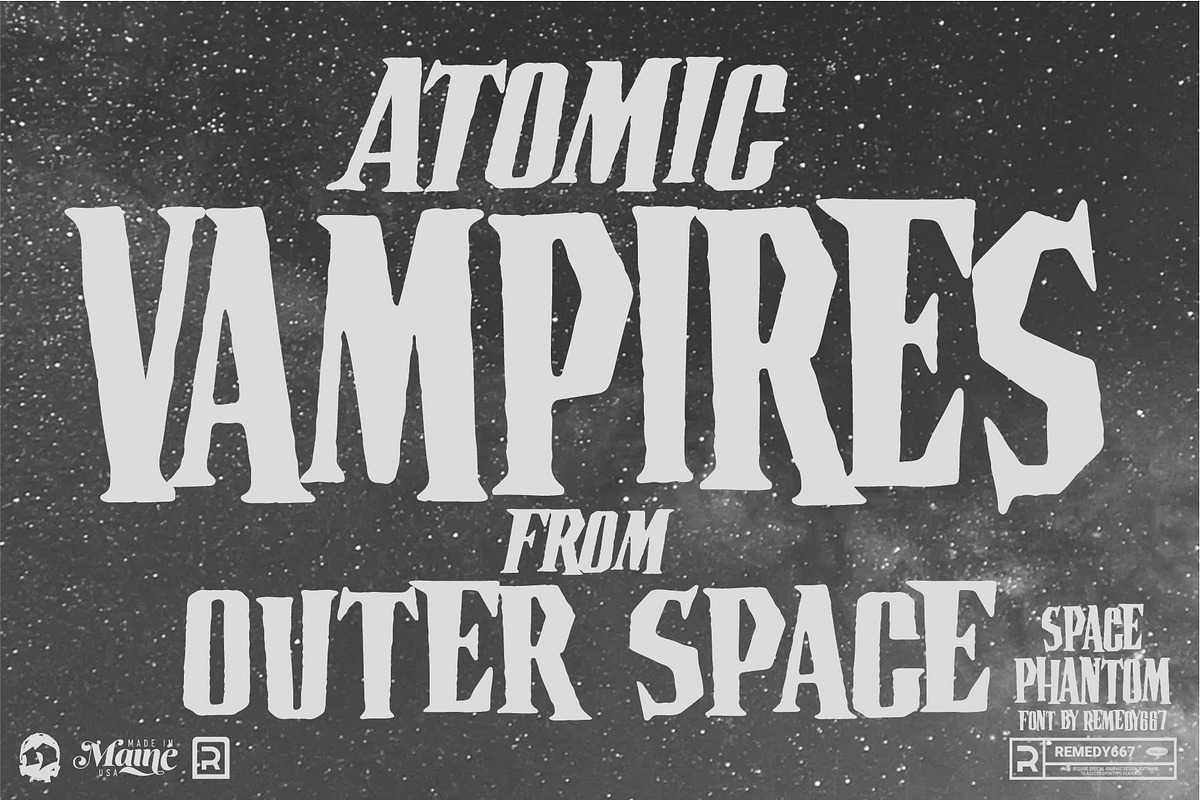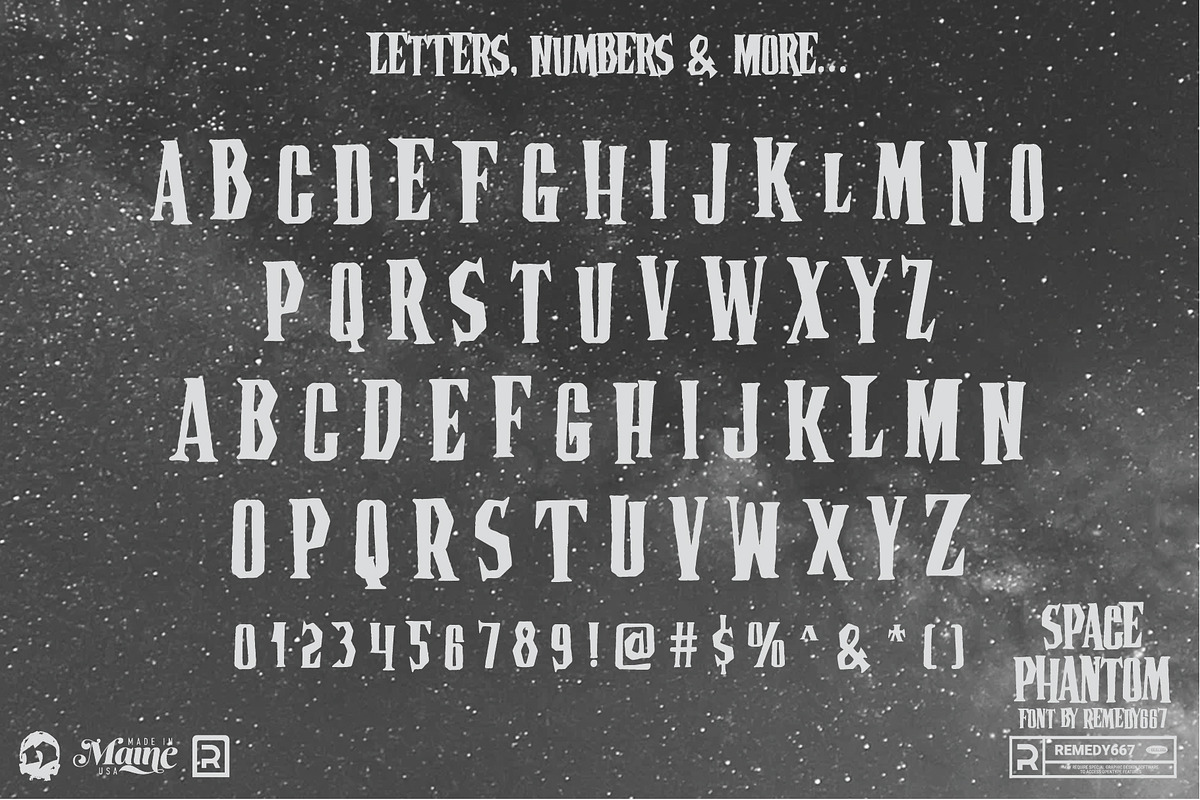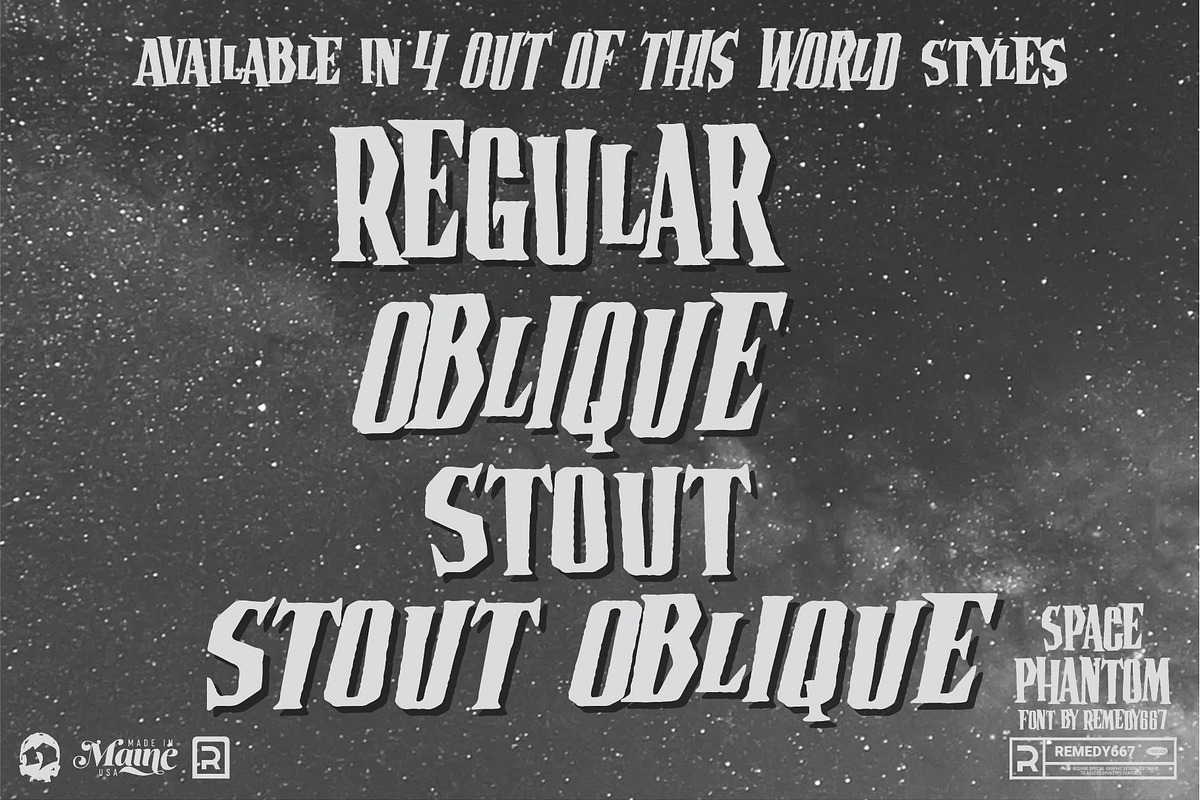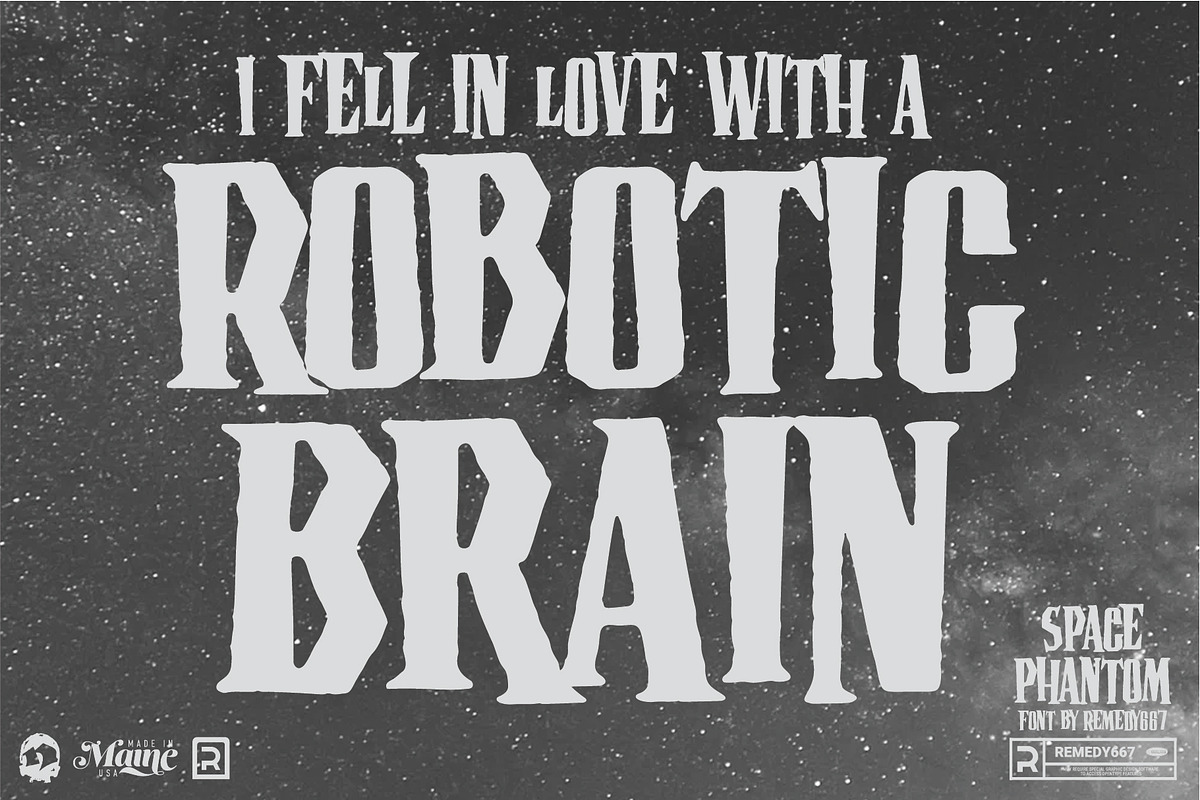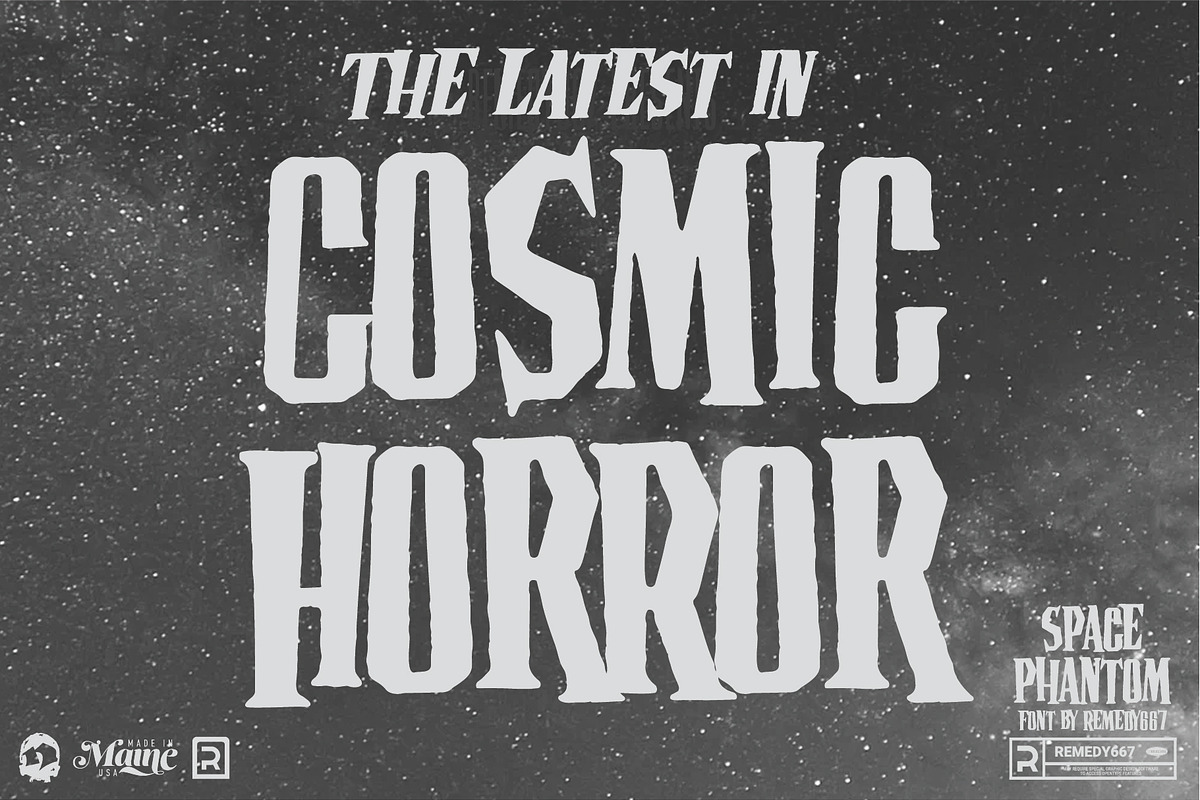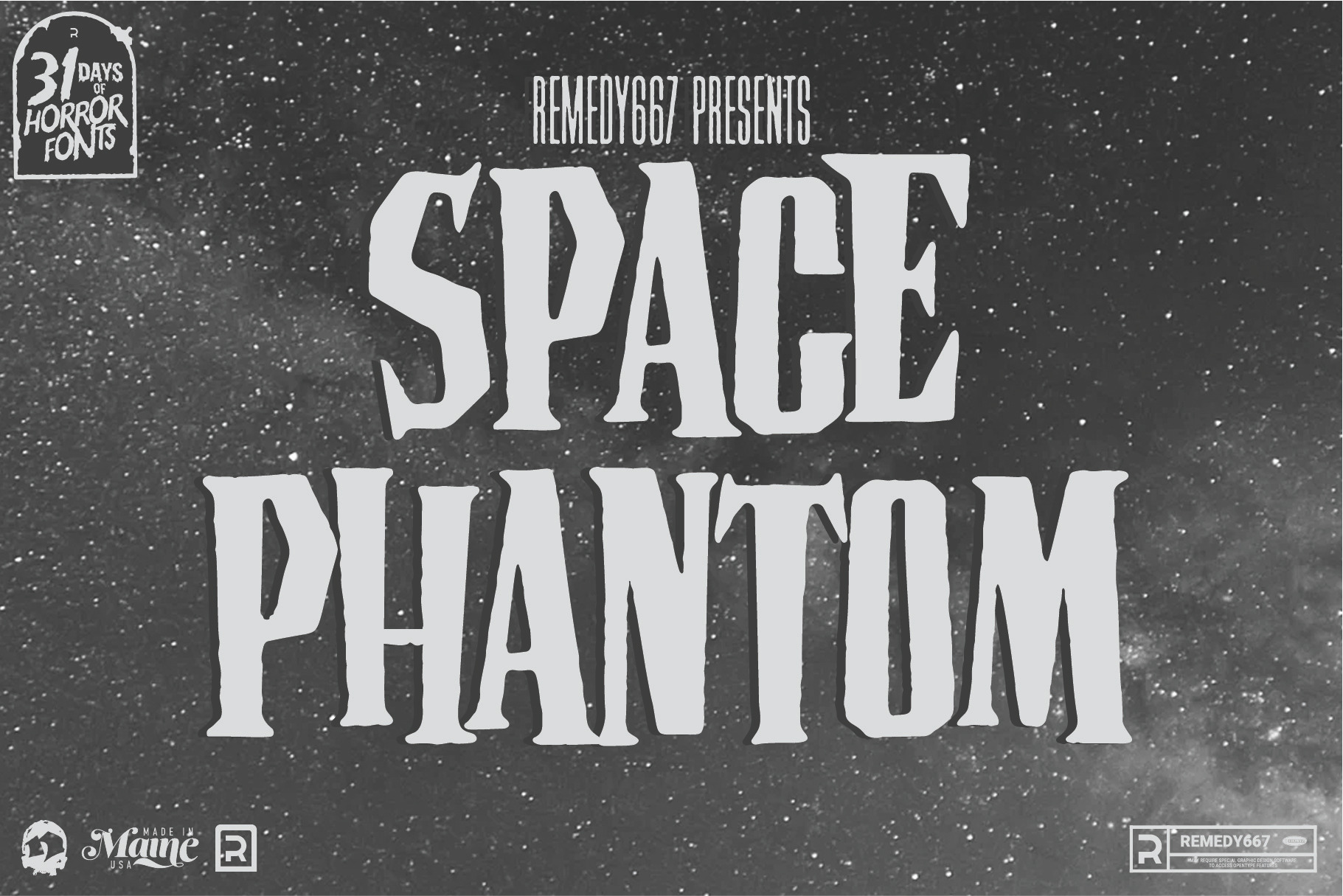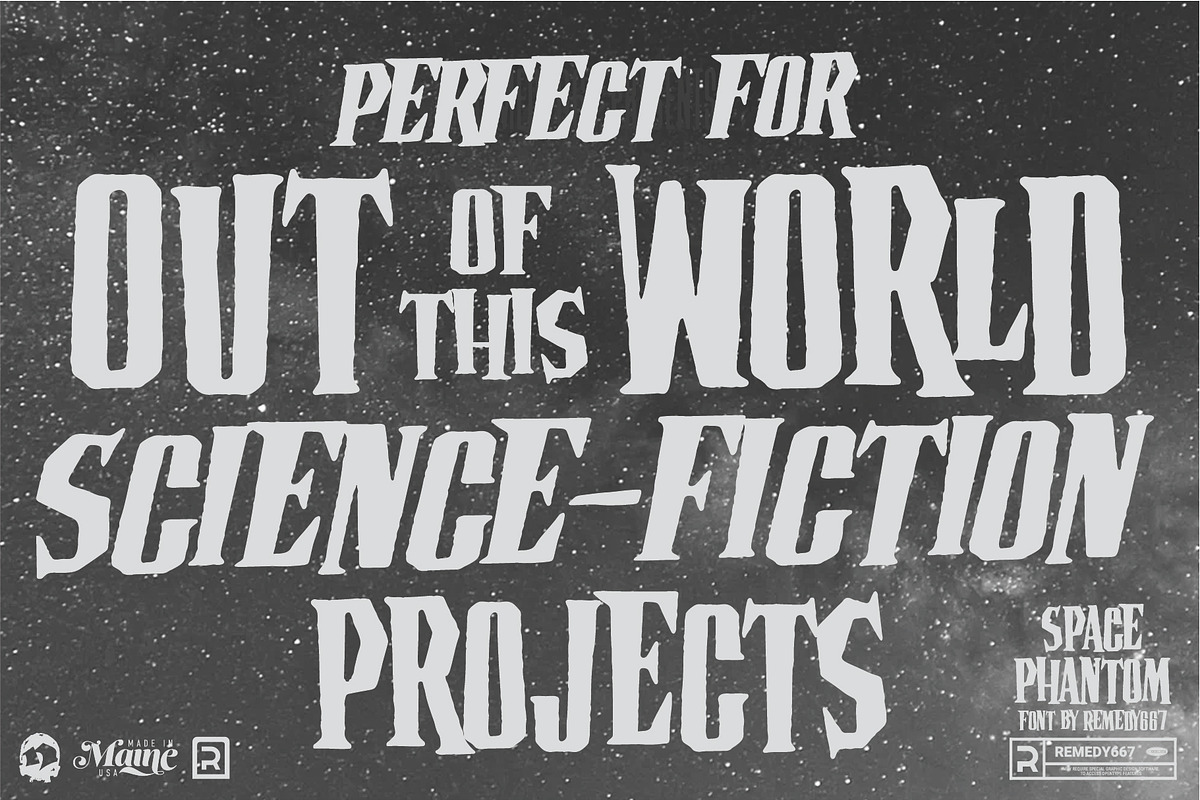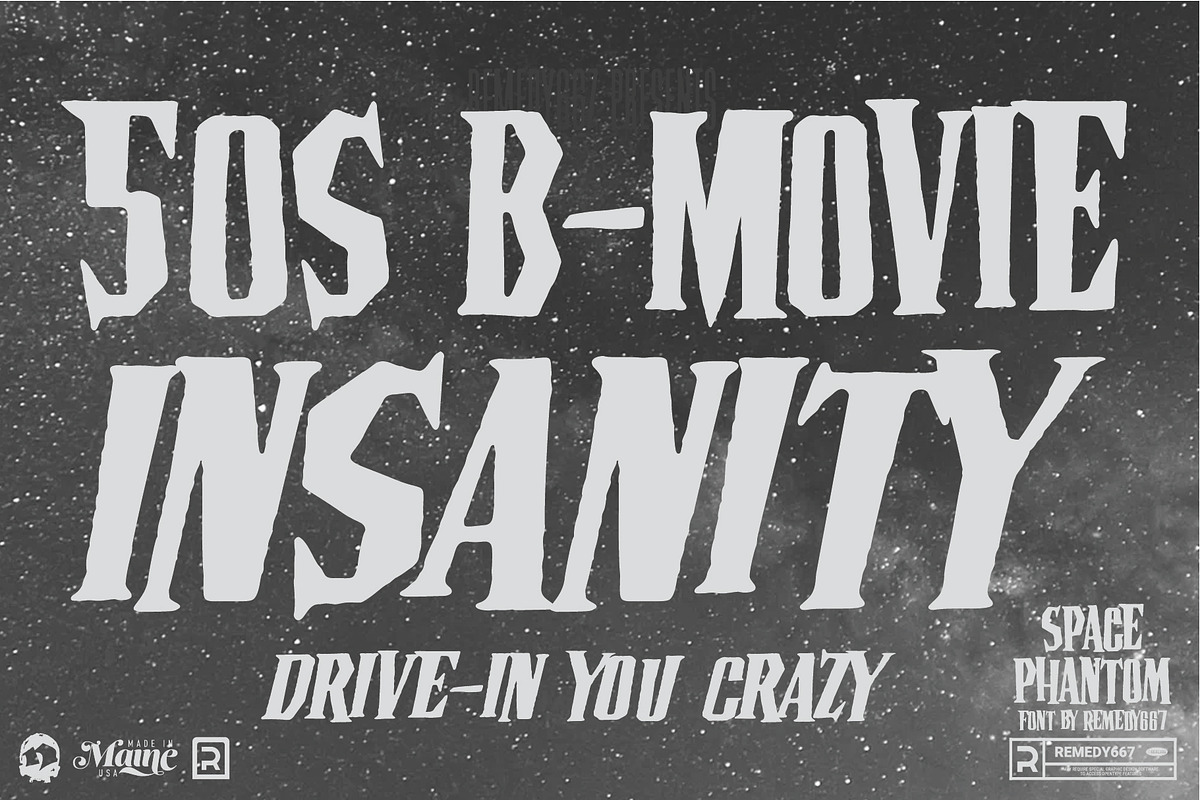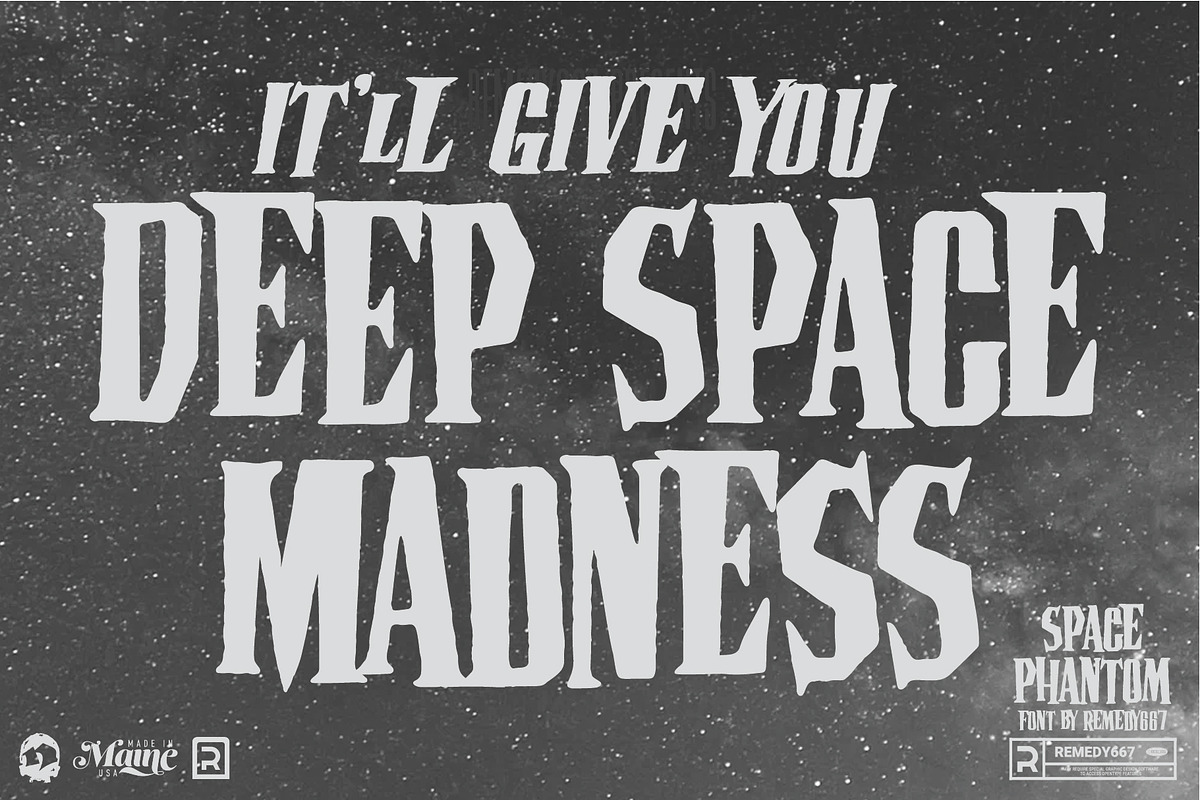
Space Phantom - Retro Sci-Fi Font
From the cold depths of great beyond comes Space Phantom! A new retro typeface from Remedy667. Inspired by the sci-fi lettering of the 1953 classic Phantom from Space come eerie uneven baselines and spectral space-age serifs. Space Phantom orbits between the uncanny and the unearthly.
Space Phantom brings the atom-age back from the dead. It’s a font that refuses to stay grounded, take your work out of this world with Space Phantom!
- Uneven baseline for eerie, off-kilter energy
- Space-age serifs with retro sci-fi charm
- Perfect for pulp, posters, and otherworldly titles
- Inspired by vintage 1950s science fiction design